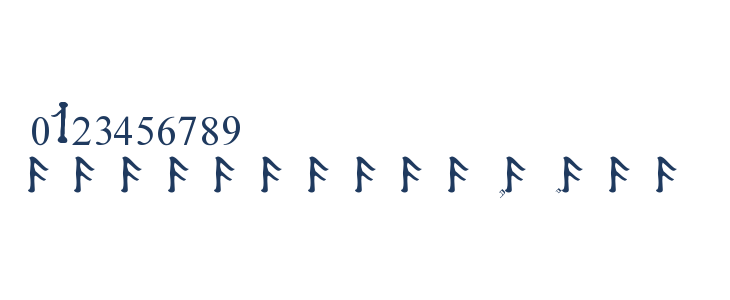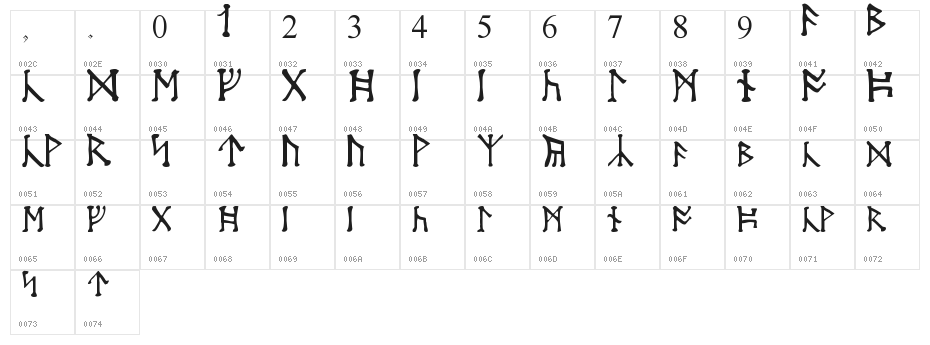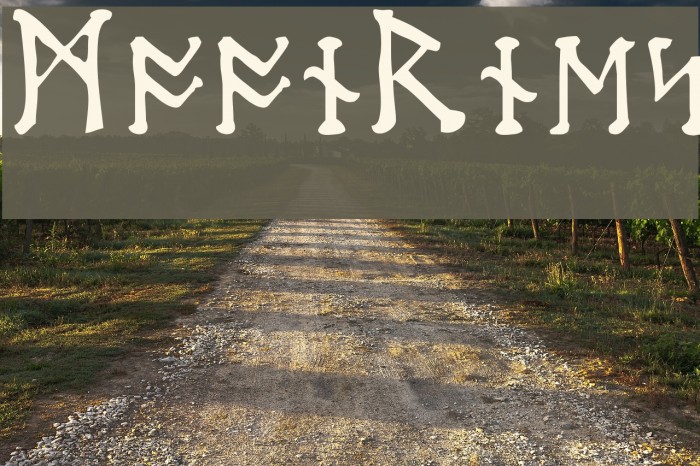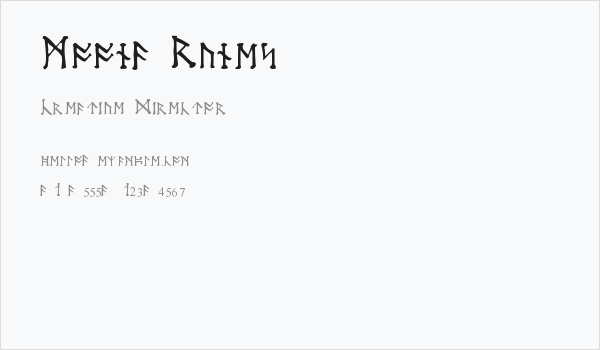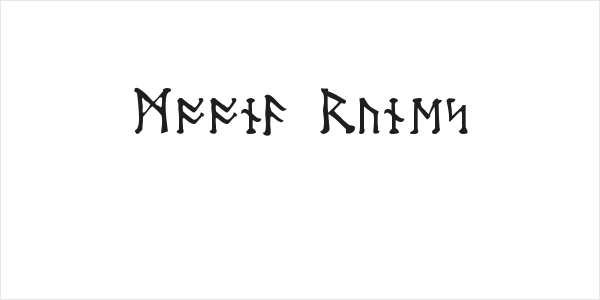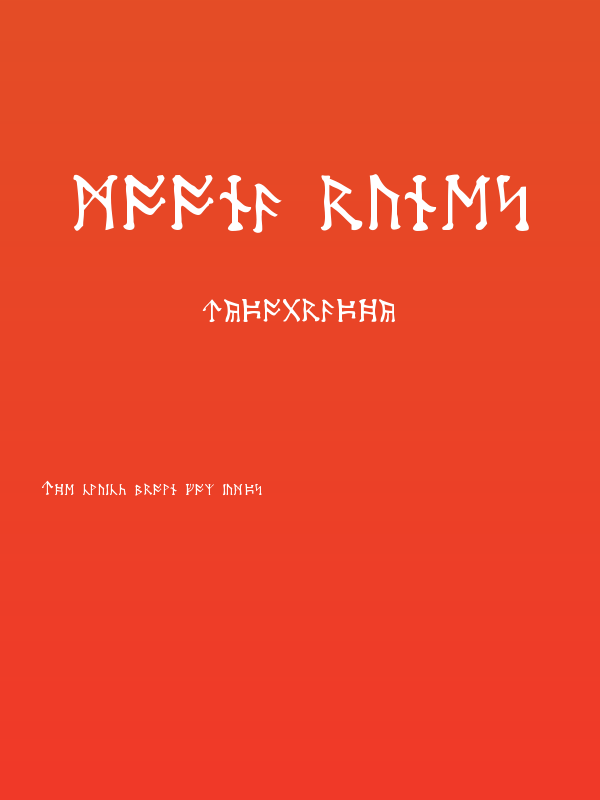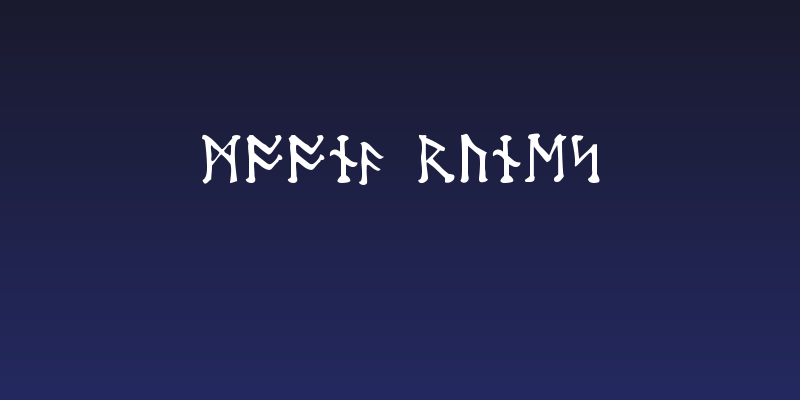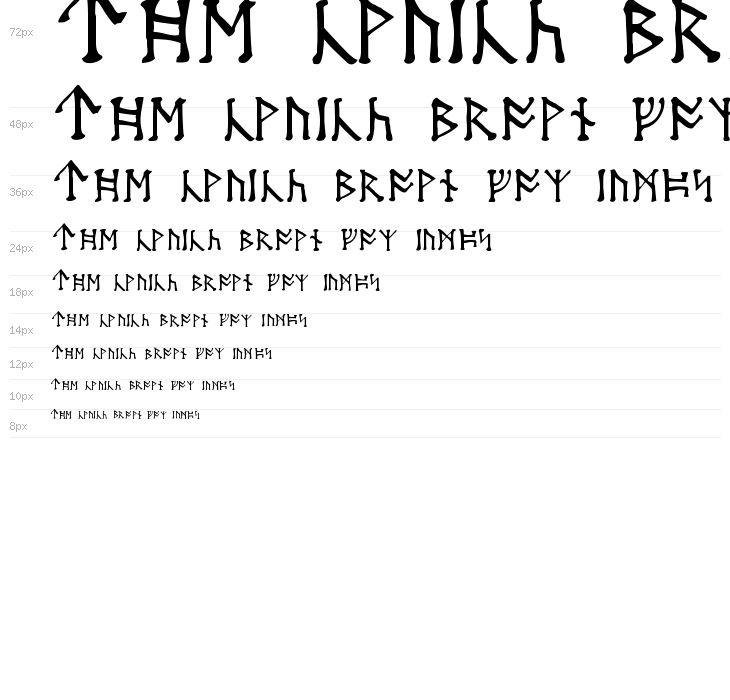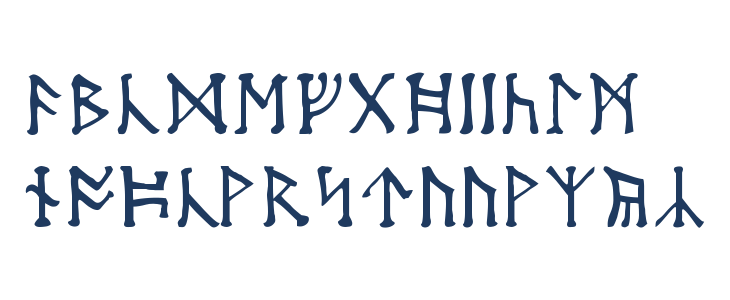
Moon-Runes Font
Moon-Runes Description
This font is a decorative typeface inspired by ancient runic alphabets, featuring angular and geometric shapes that evoke a sense of mystery and antiquity. The characters are bold and distinct, with sharp edges and unique forms that resemble historical inscriptions. The numerals are more modern in appearance, with a smooth and clean design that contrasts with the runic letters. This combination of styles creates a unique visual experience, making it suitable for projects that aim to blend historical and contemporary elements.
| Use Case | Logos, Headlines, Themed Events |
| Proposed Projects | Ideal for fantasy-themed designs, historical recreations, game interfaces, and book covers. |